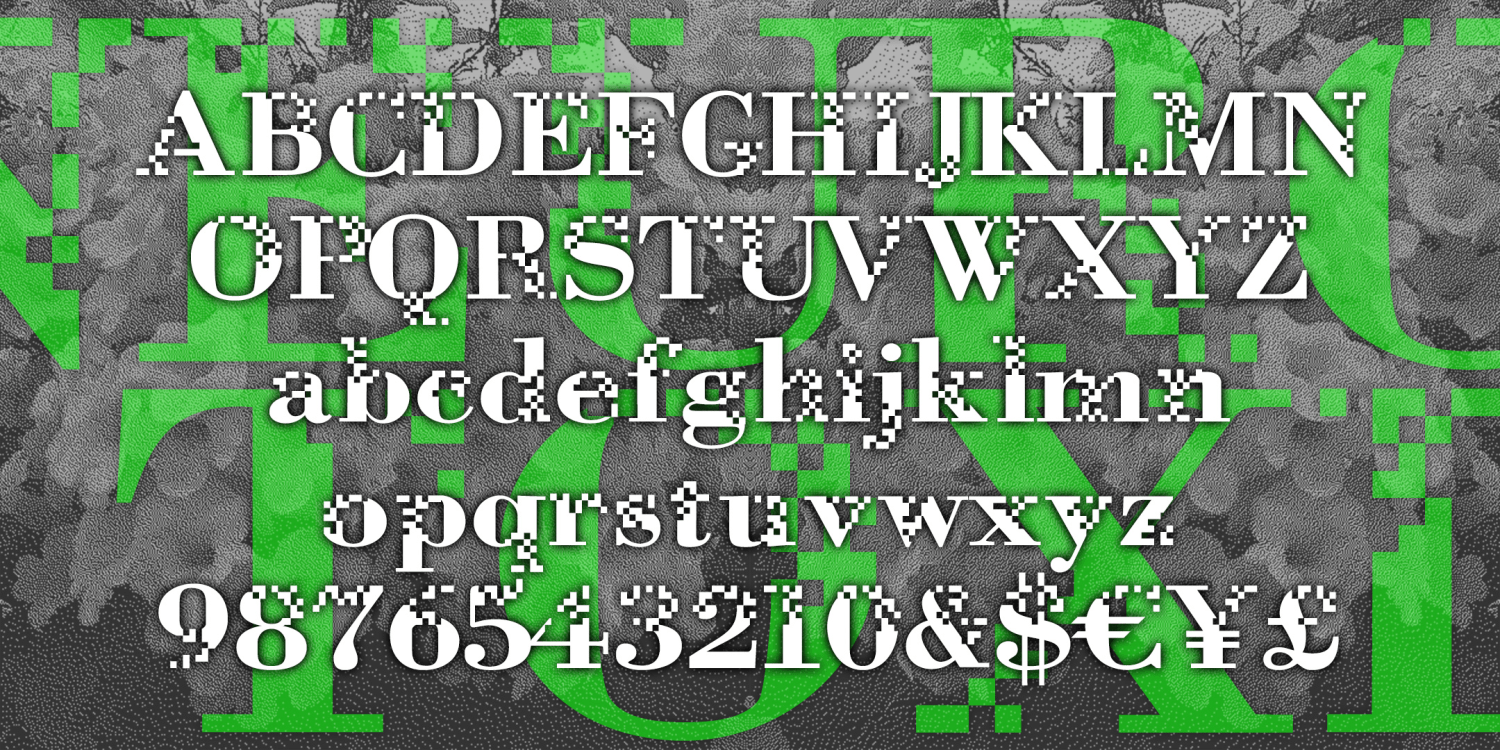
Neurotoxin
NEUROTOXIN is designed to look like the letters are breaking up or forming from pixels. It was inspired by one letter: the Xerox Corporation's former X logo, designed in 1994 by Landor Associates. The basic letter forms are modeled after a bold Didone-type font. Pairs with a nice Bodoni or even Times Roman. Version 2.0 includes an expanded character set with lowercase and improved spacing and kerning.
The Neurotoxin font family includes 345 glyphs.